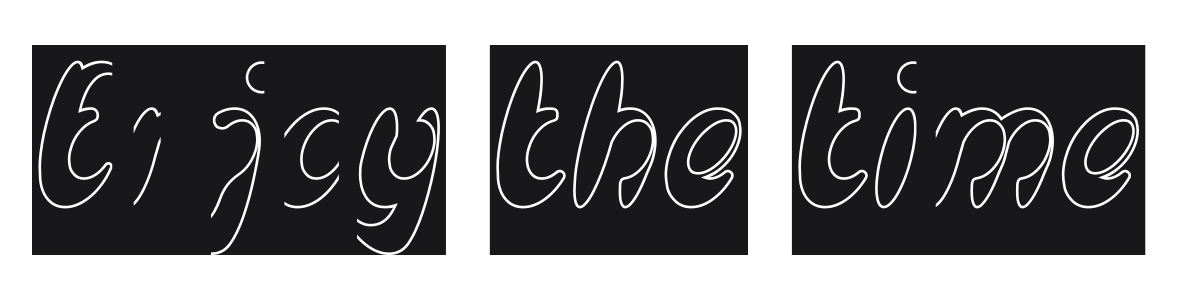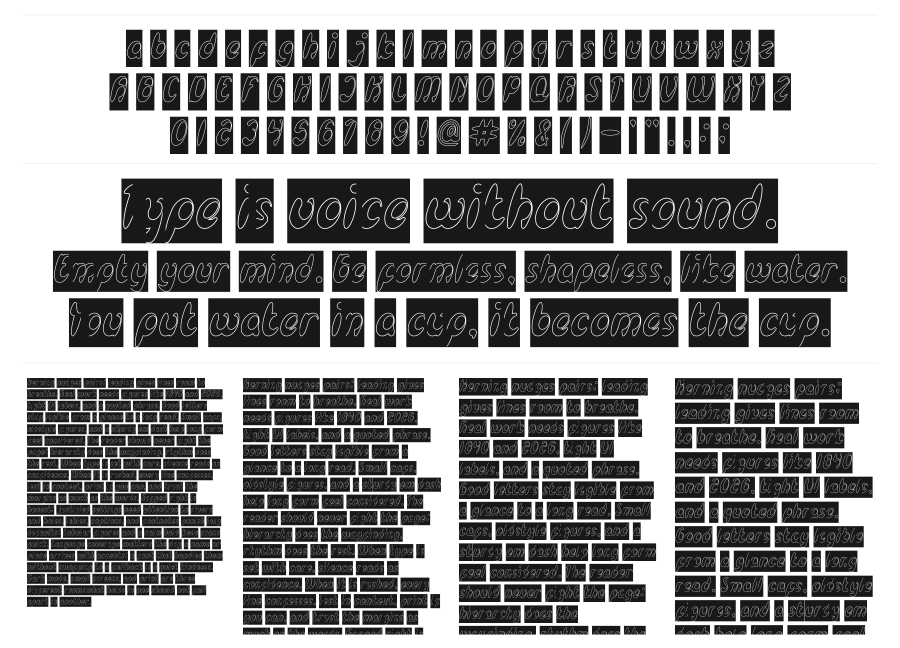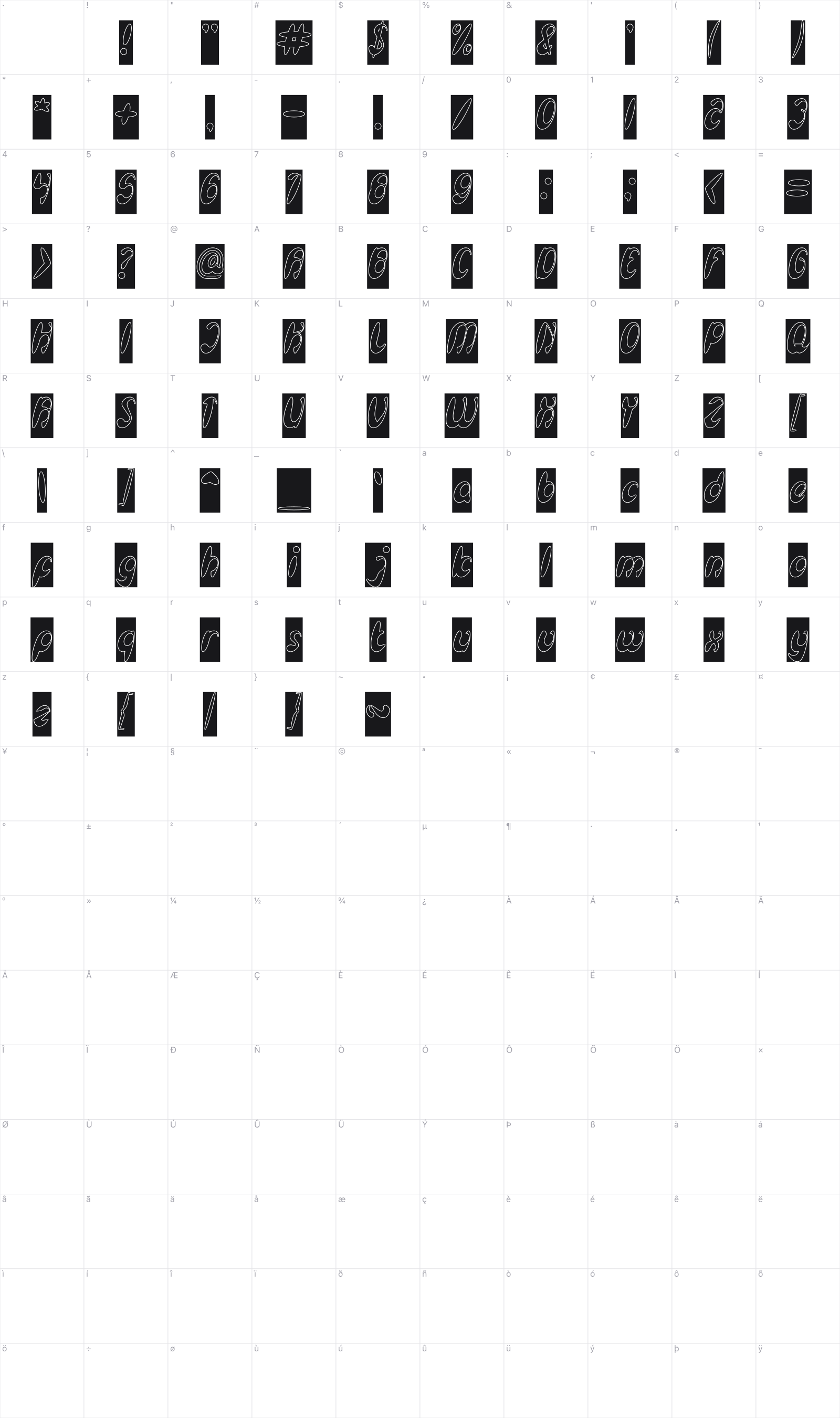
Enjoy the time
Enjoy the Time is a flowing outline display font from Weknow Font Foundry built around exaggerated italic curves and hollow, doodle-like strokes. Every character loops and leans with a carefree energy that feels hand-sketched rather than constructed. It suits posters, album art, and anywhere a relaxed, groovy personality is the point.